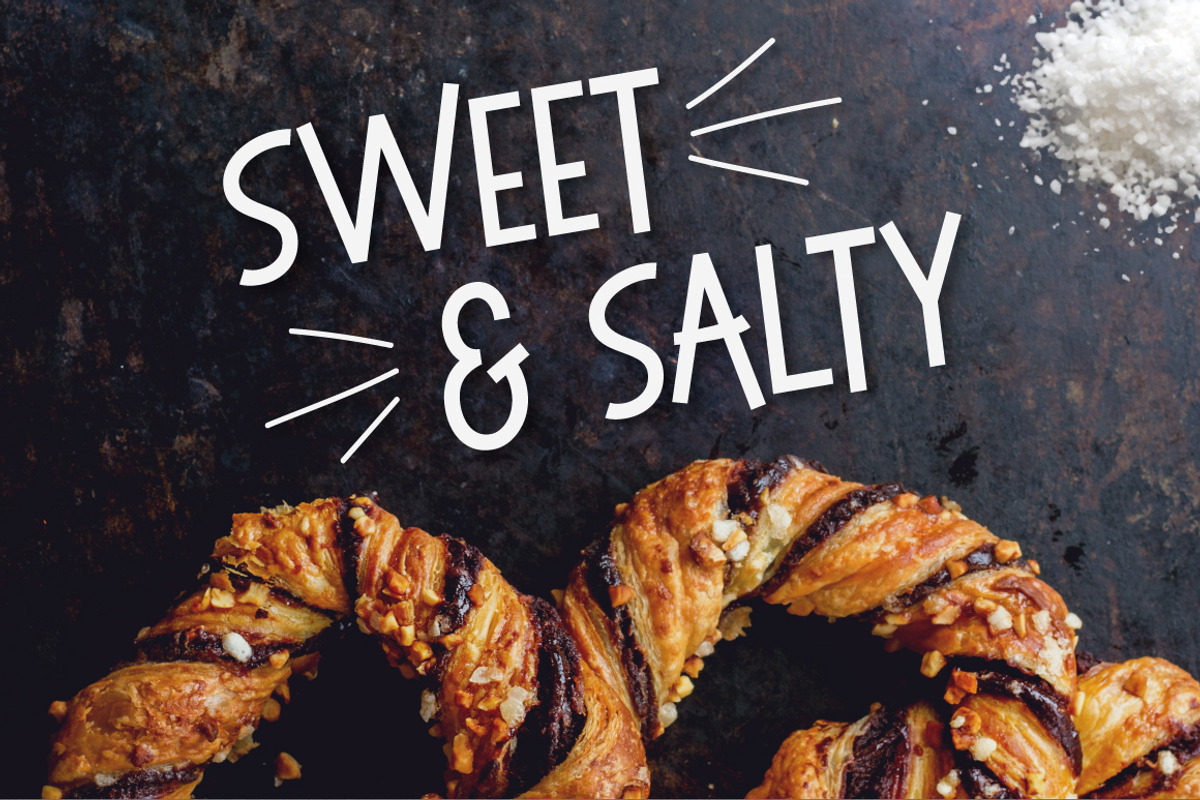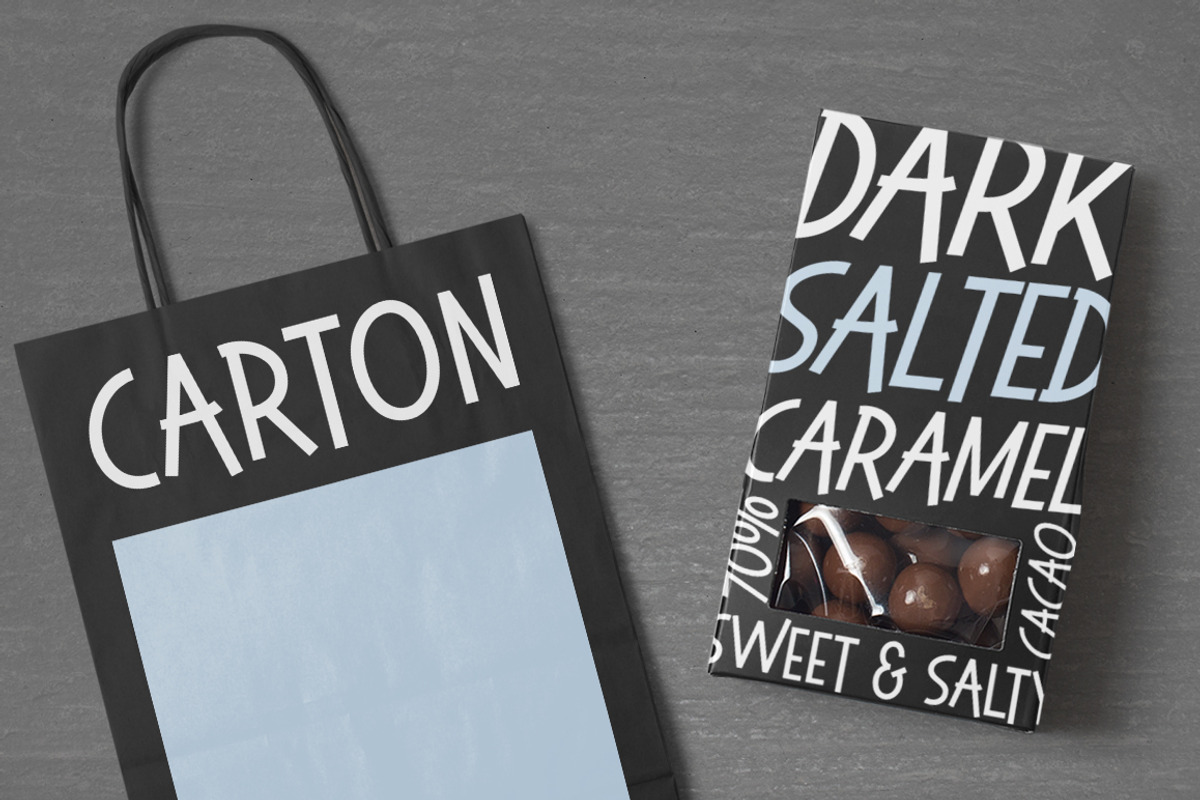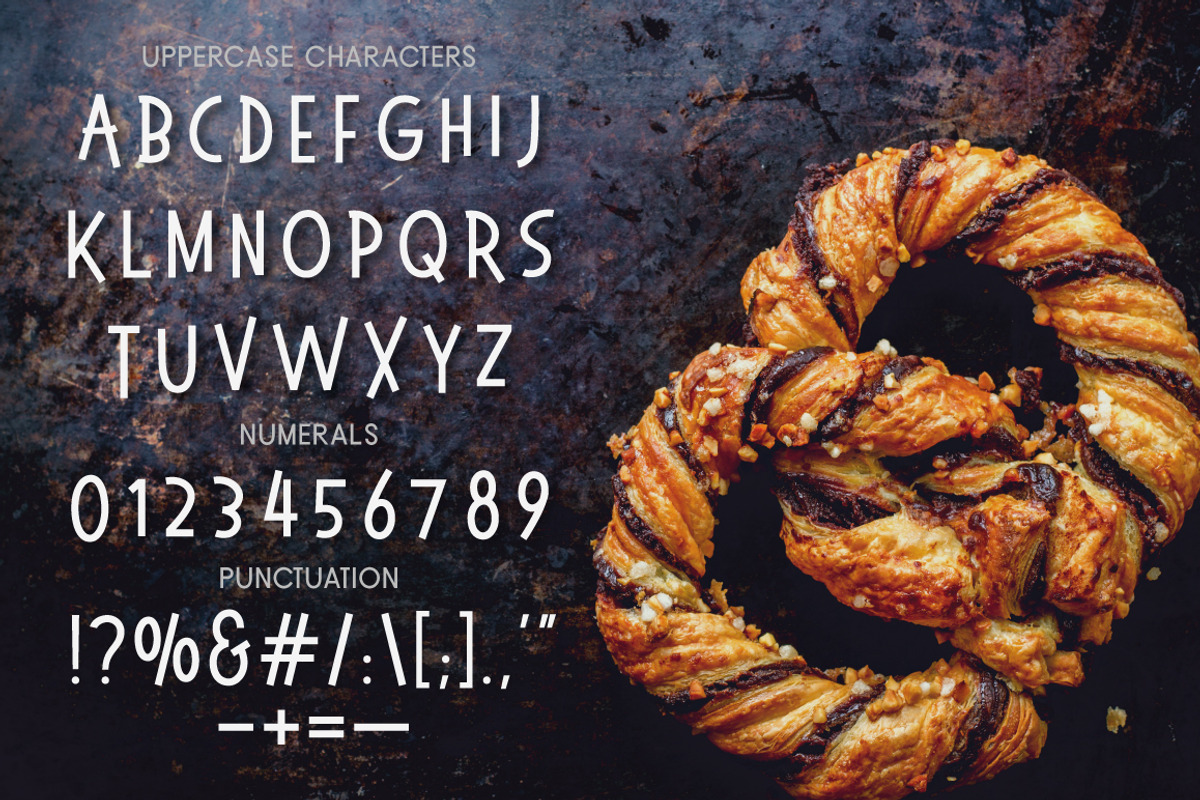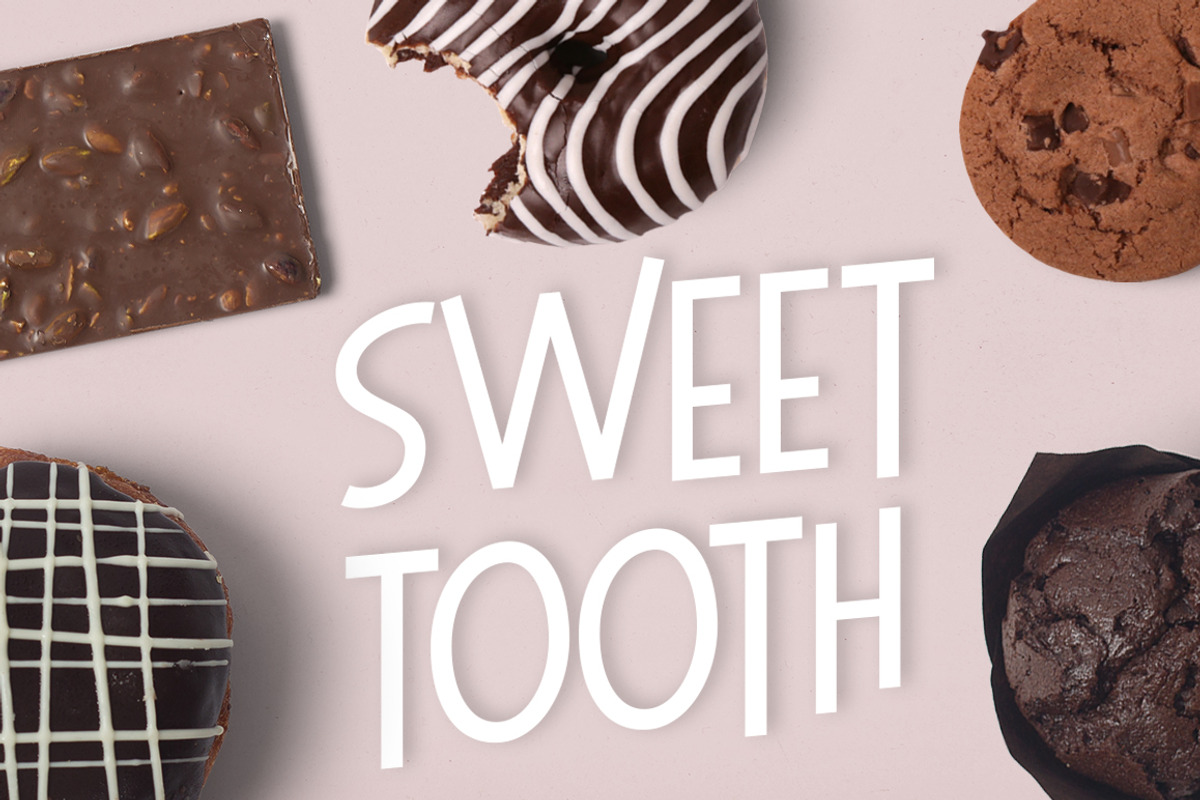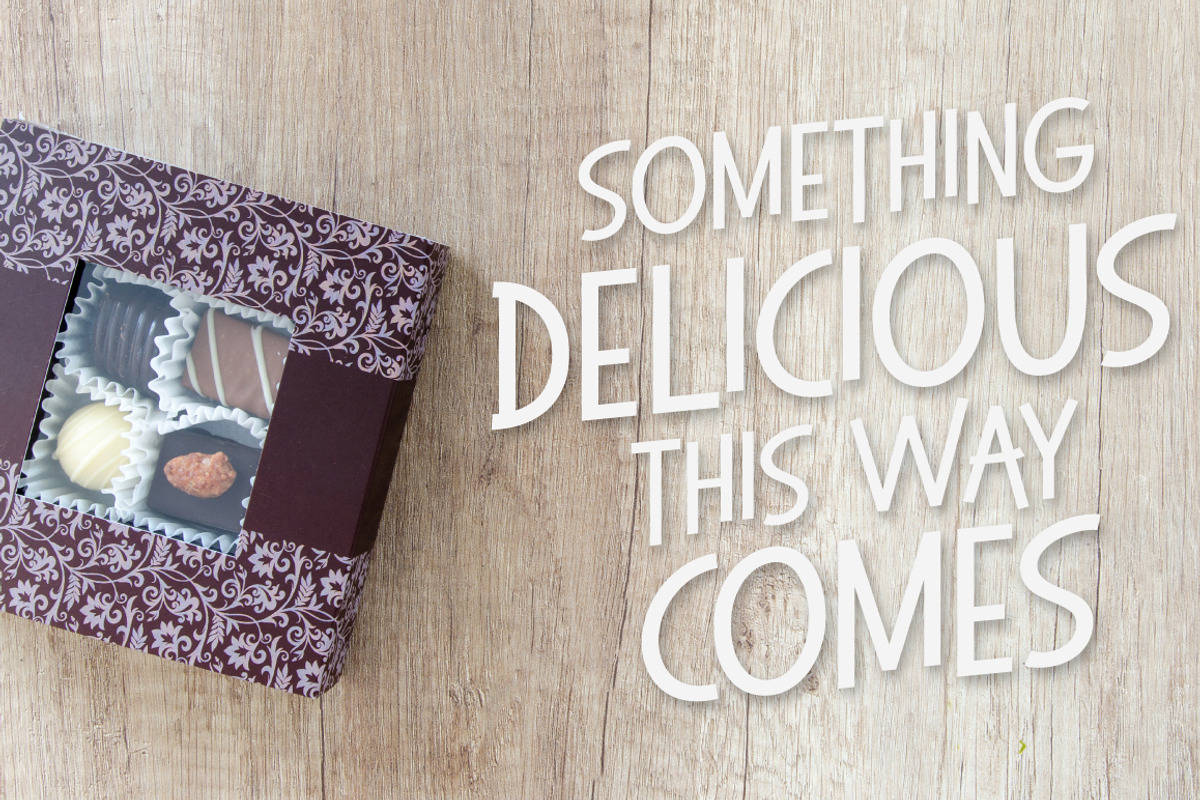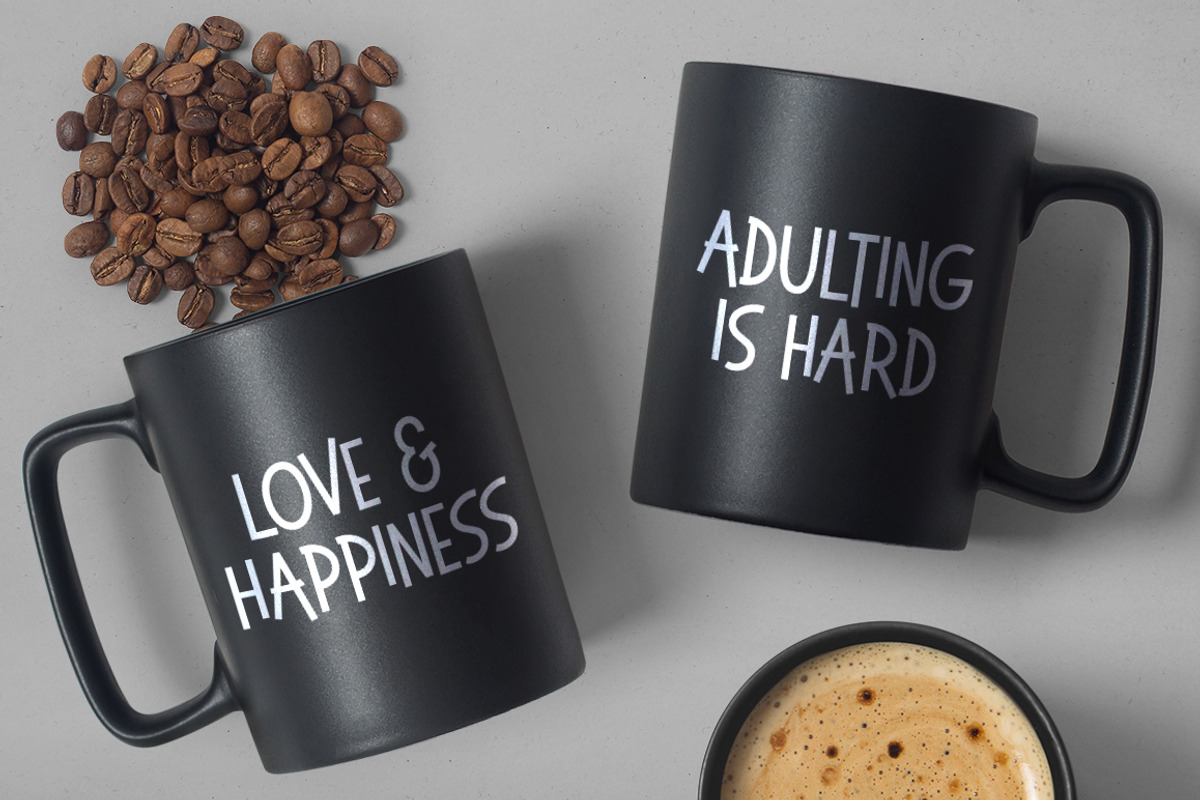
Sweet & Salty is a quirky, fun sans serif typeface with a bouncy baseline. Inspired by mid-century type, Sweet & Salty adds a vintage flavor to your designs, and it's versatile, too. Use it for packaging, logos, craft projects, posters, bold headlines, and more. Start creating something fun and funky today with Sweet & Salty.
Uppercase Characters
International Characters